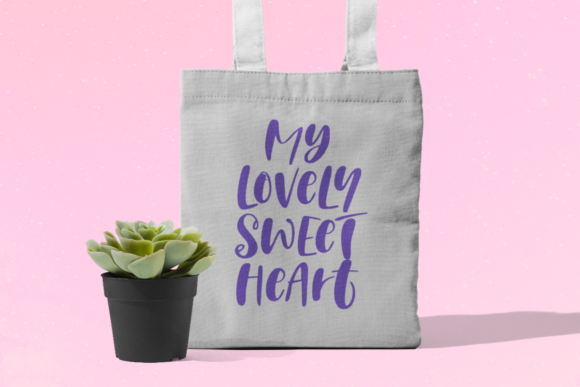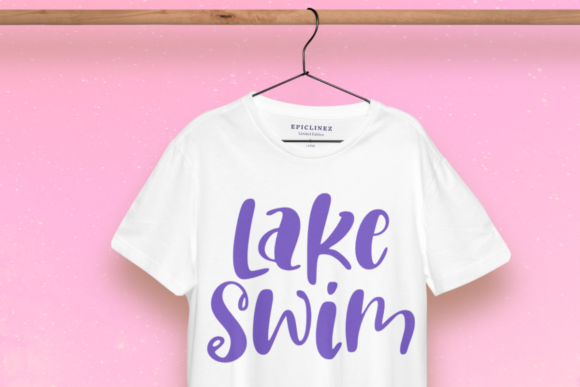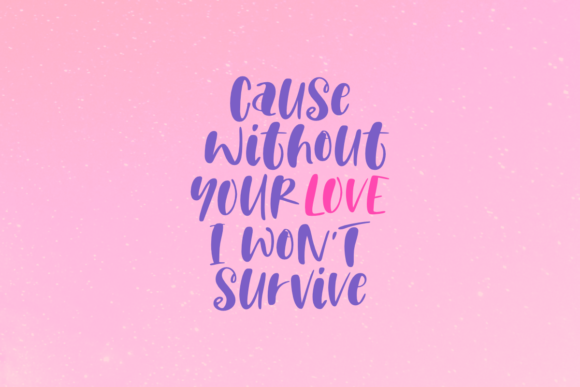
Introduction to Pretty Pink Font
Have you ever been working on a creative project, pouring your heart and soul into it, and just needed that one special touch to make it truly stand out? For designers, finding the right font can be the difference between a good design and a great one. I know I’ve been there, scrolling through font collections, searching for that perfect combination of style and personality.
That’s where the Pretty Pink Font comes in – a delightful, handwritten font that’s as sweet as it is stylish. With its jolly and full of life style, this font is a wonderful choice for brightening up your designs and adding a touch of whimsy to your creative projects.
Key Features of Pretty Pink Font
- Unique, cursive design ideal for creative projects and personal use.
- Perfect for adding a touch of elegance and femininity to any design project.
Honest Review: Pretty Pink Font
- What works well: ✨ The font is highly versatile and can be used for a wide range of projects, from wedding invitations to social media graphics.
However, there are a few limitations to keep in mind: ⚠️ The font is not as extensive as some other popular font families, which may limit its use for certain projects.
Overall, I was impressed with the Pretty Pink Font and would recommend it as a design resource for any creative project. The high-quality design and versatility make it a great addition to any designer’s toolkit.
Overall, I’d give the Pretty Pink Font 4 out of 5 stars. While it may not be perfect, it’s a solid choice for designers looking for a free, high-quality font to add some visual interest to their projects.
The Pretty Pink Font is a versatile design resource that can be used in a variety of creative projects, such as:
- Invitations
- Posters
- Flyers